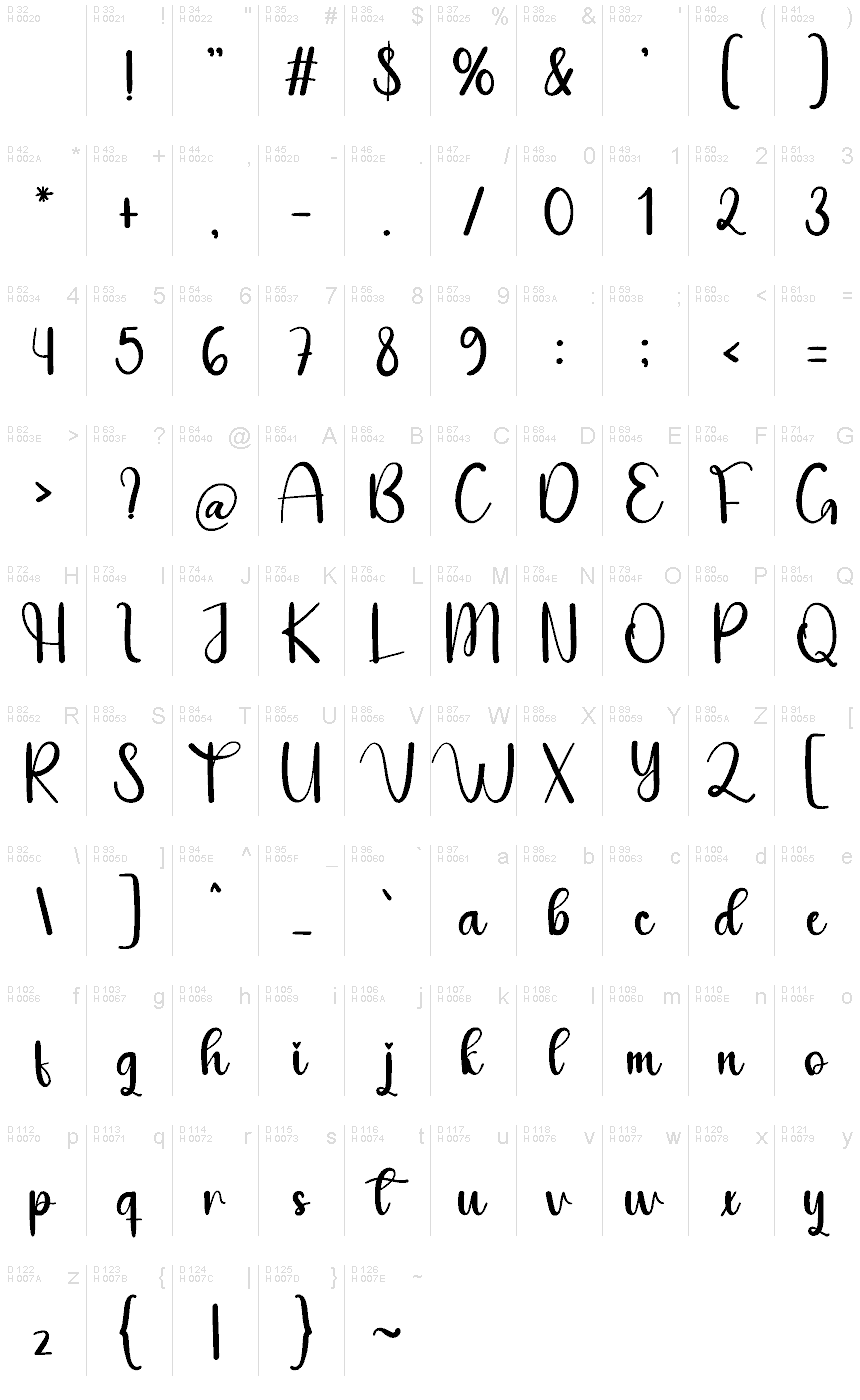
Brilliant Christmas
Brilliant Christmas font is a festive handwritten font by Andi Moz. This elegant and decorative typeface has an expressive, ornamental appearance with flowing letters that add elegance to every design they’re used in. Enjoy the magic and cheerfulness of Christmas days with this lovely addition to your typography collection.
Use the free decorative font for holiday greeting cards, gift packages, special occasion invitations, wrapping papers, website designs, book covers, brochures, social media pages or posts tailored to Christmas day vibes. You can also use it for vintage ads and packaging projects.